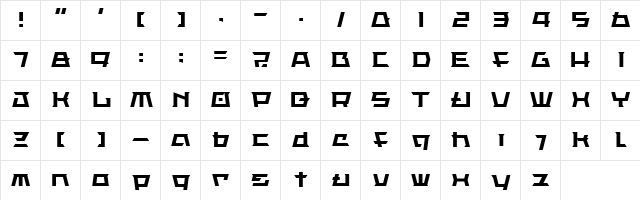
LVDC ErisSQ Regular
Design Context for LVDC ErisSQ
LVDC ErisSQ is a composed and adaptable typeface that performs quietly and consistently across a wide range of design contexts.